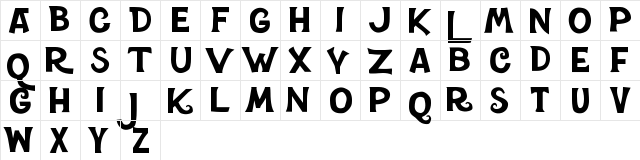
Chocolate Factory Regular
Design Context for Chocolate Factory Typeface
Chocolate Factory is a composed and adaptable typeface that performs quietly and consistently across a wide range of design contexts.